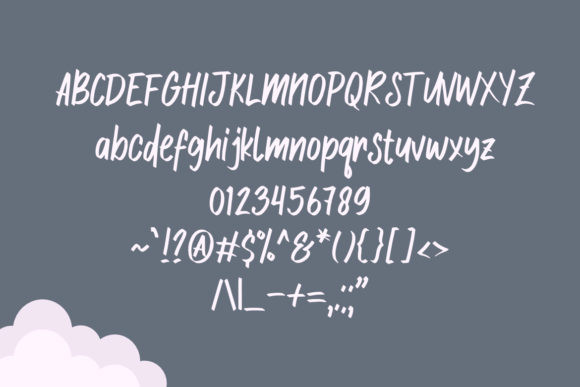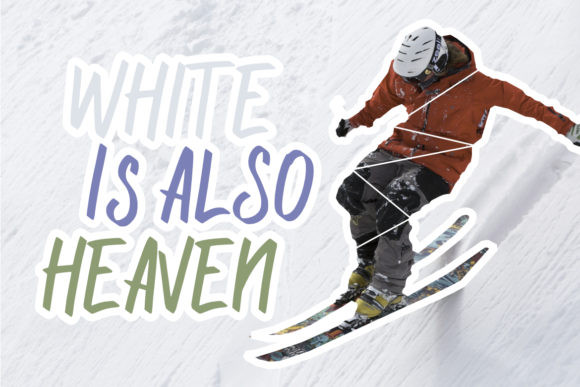
Free Style Font
Free Style is a simple marker display font with a playful style. It will look especially great in any gaming or sports-themed project!